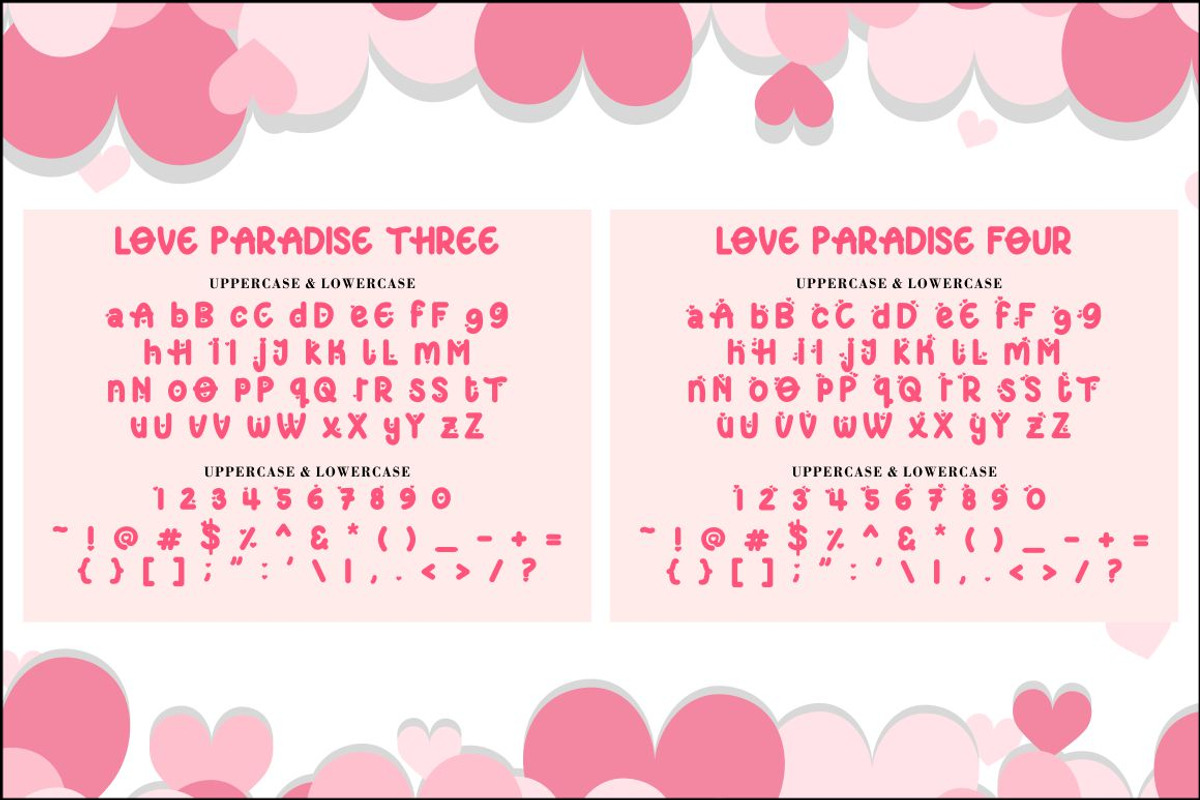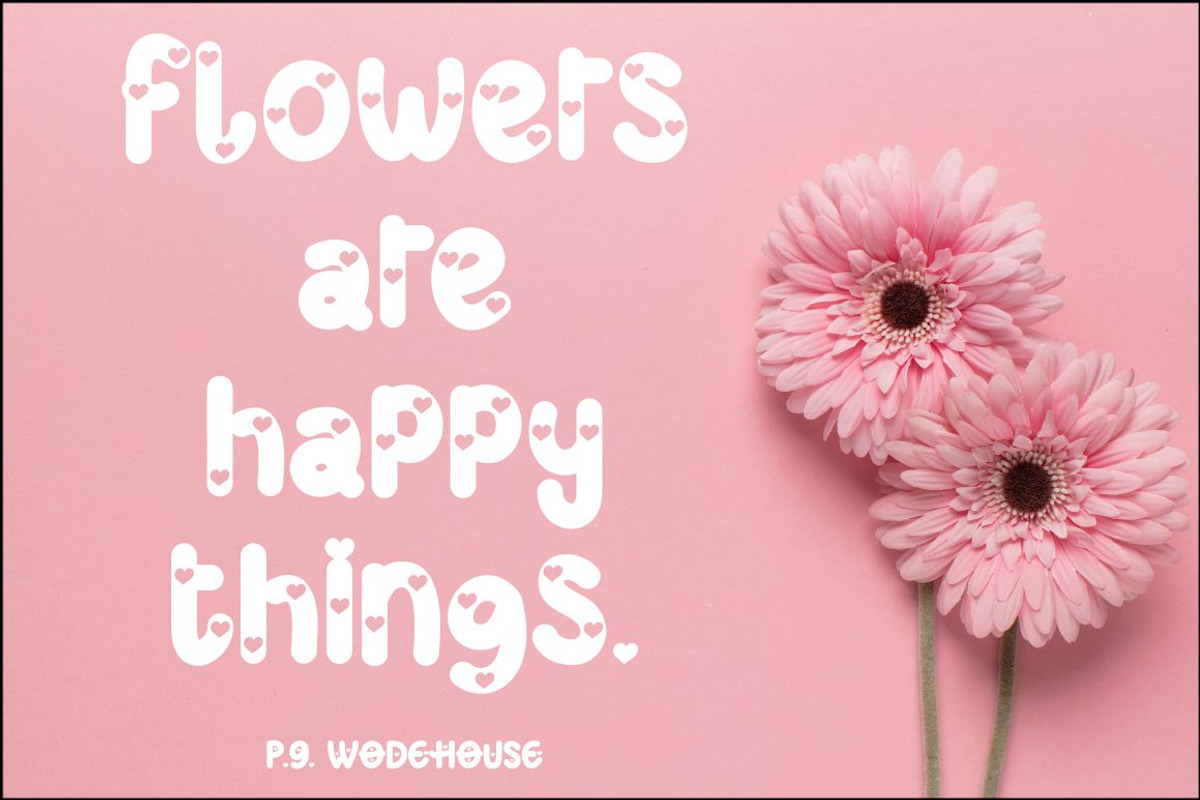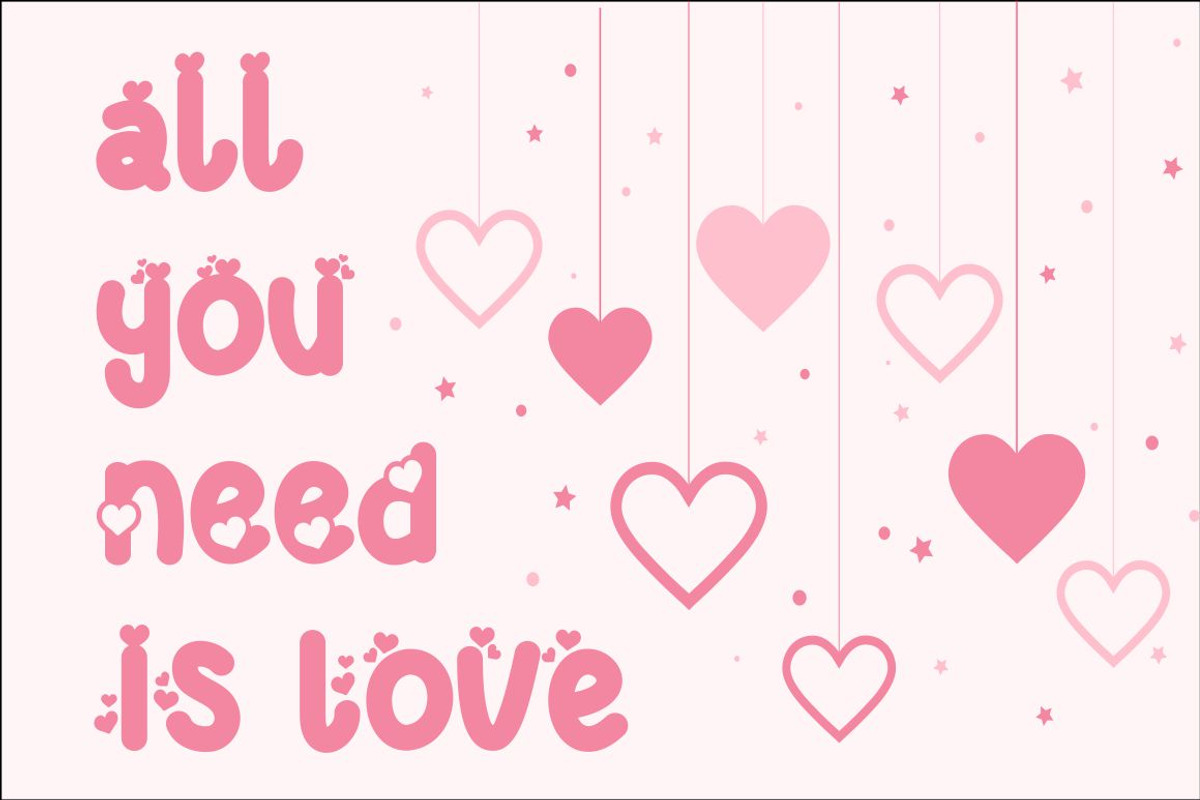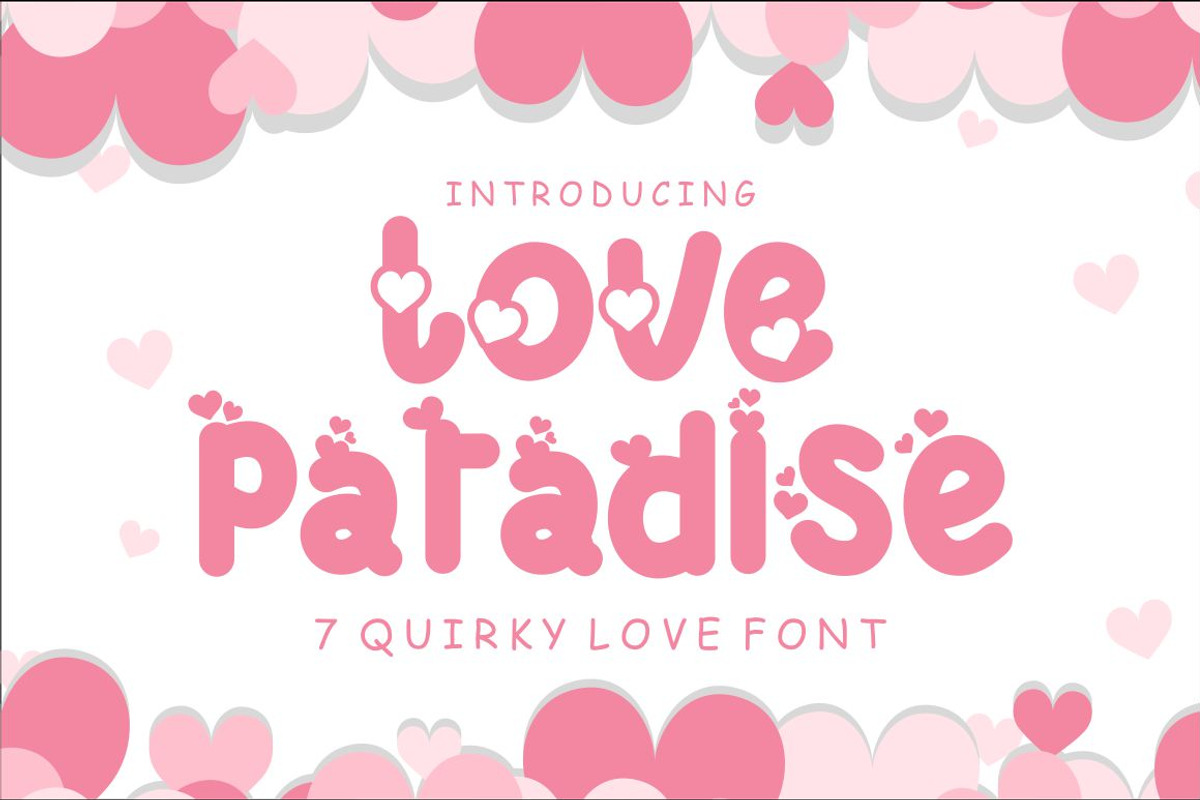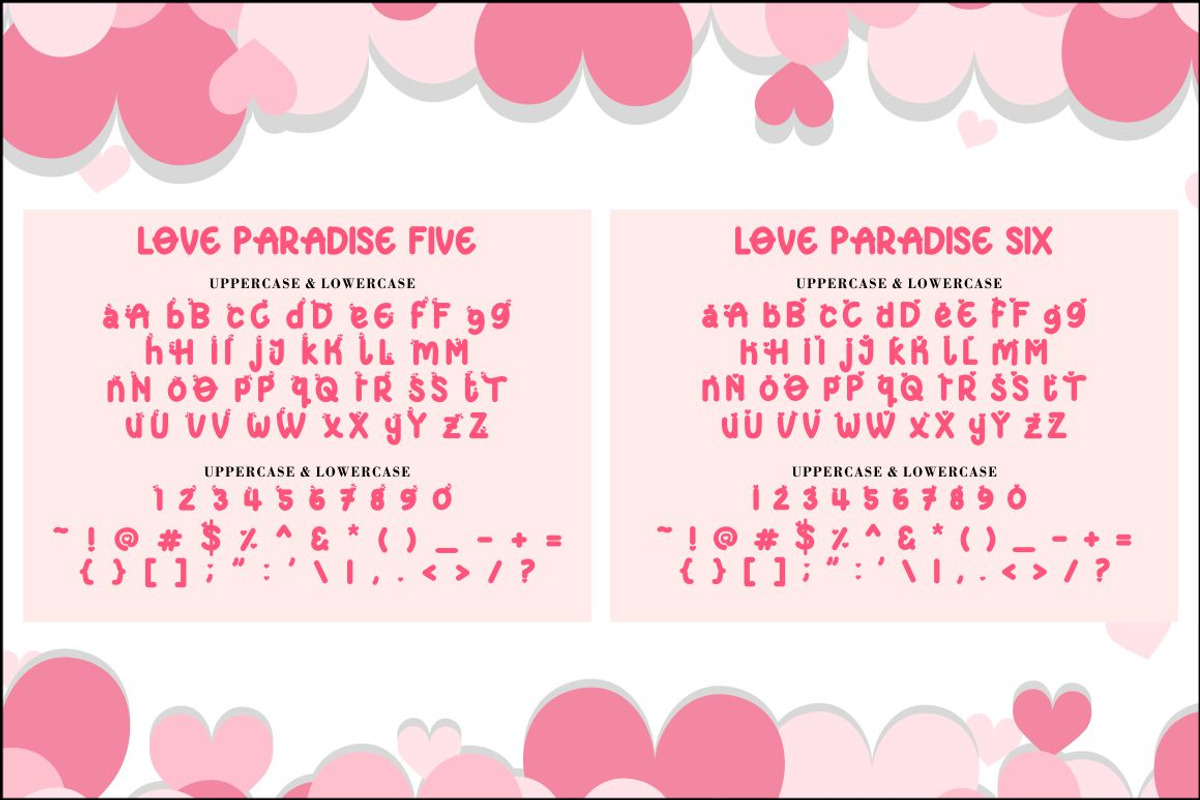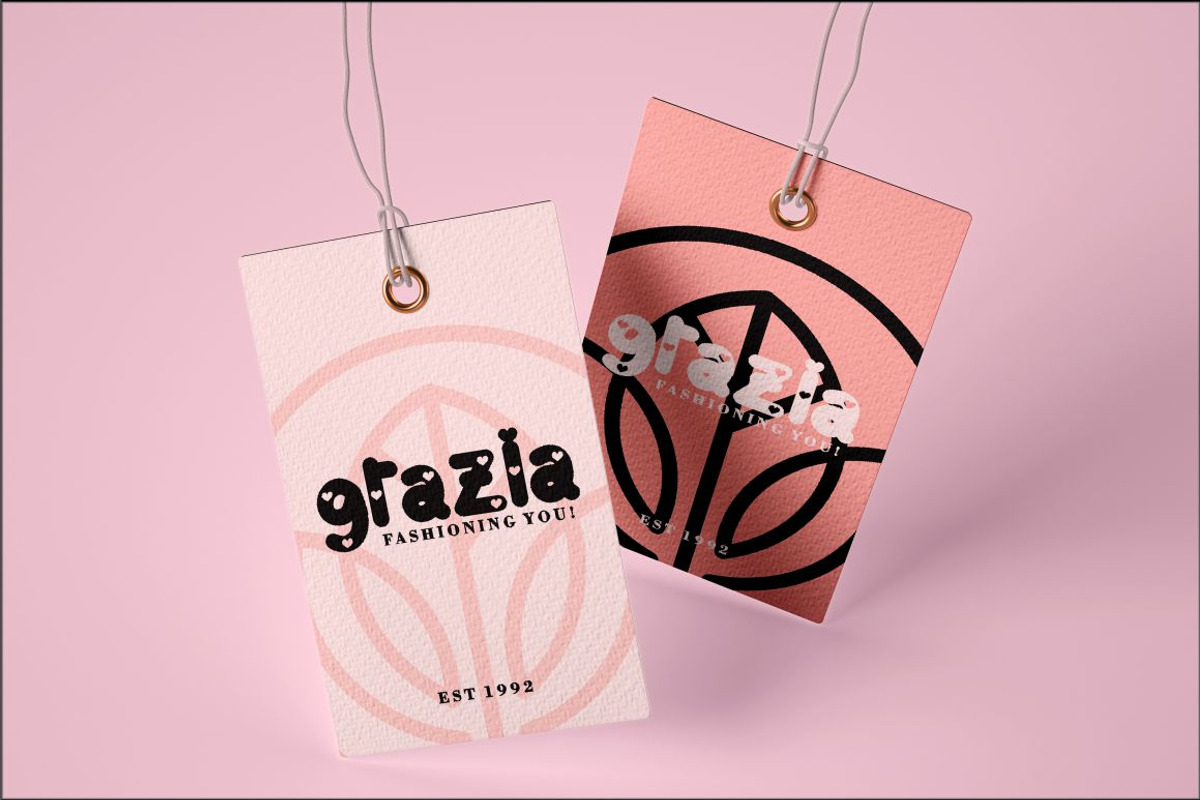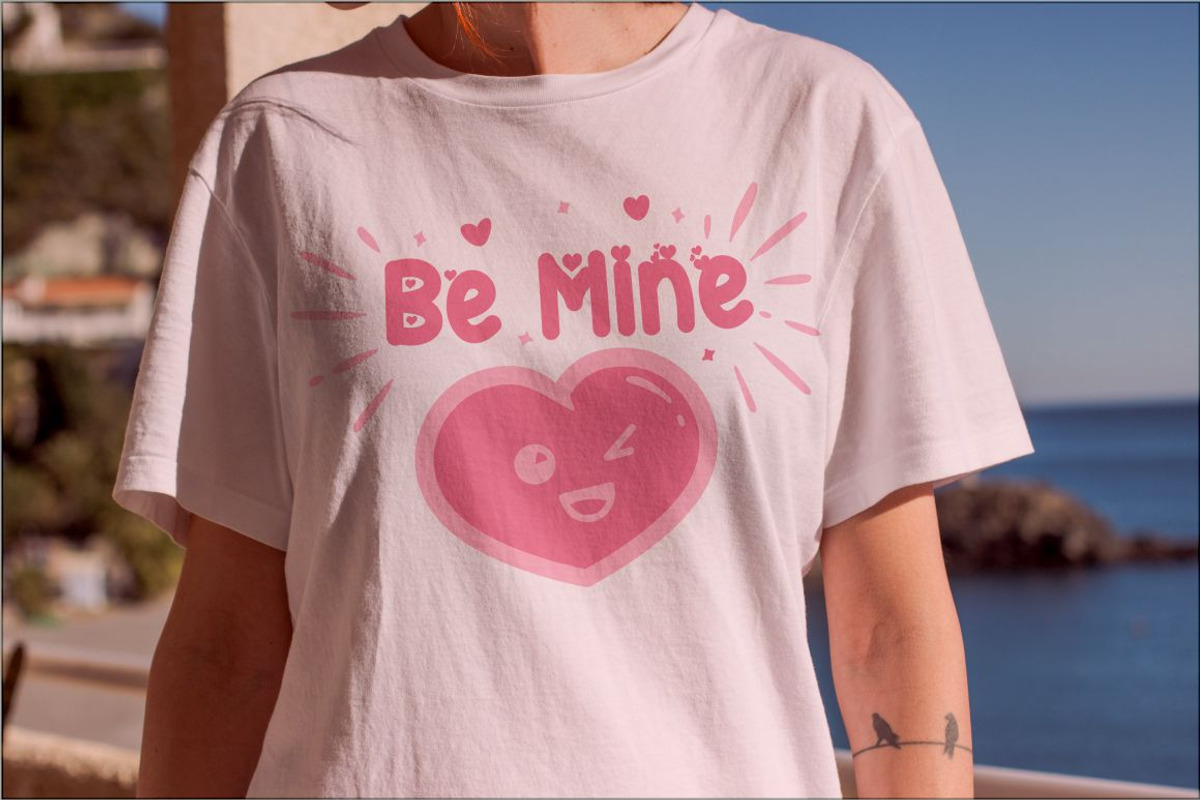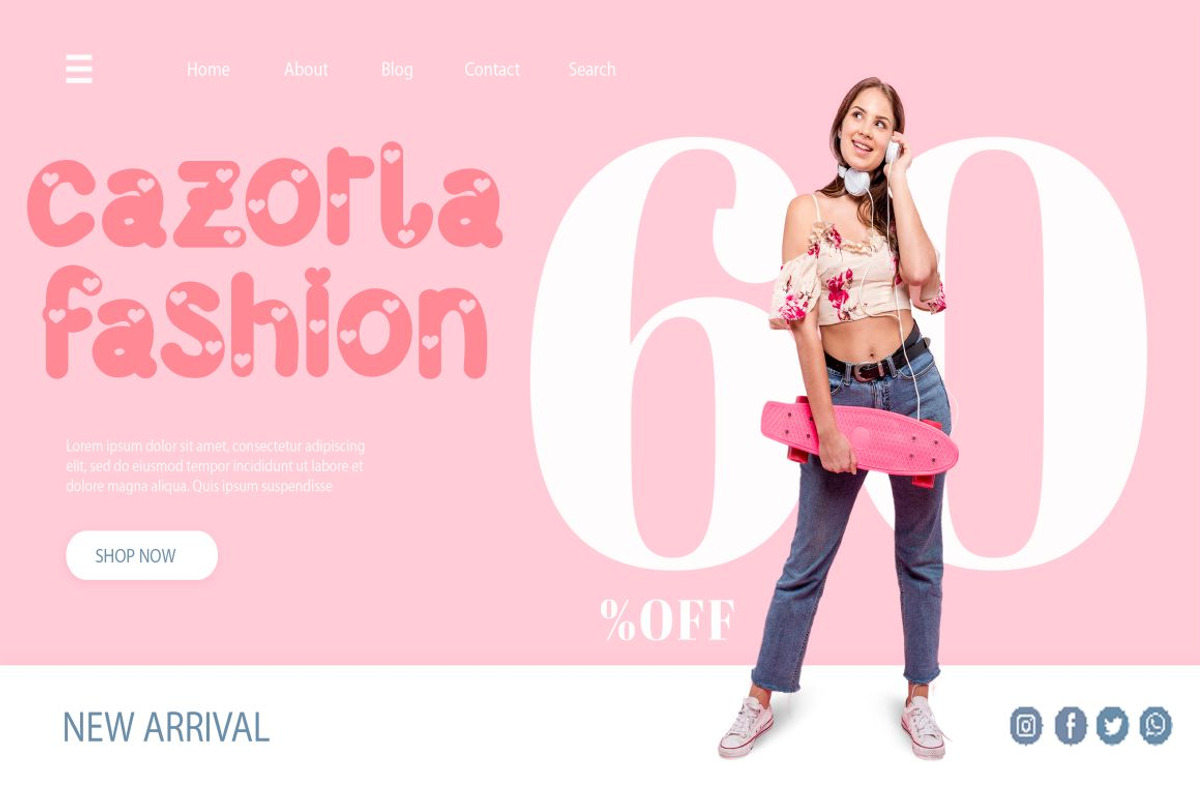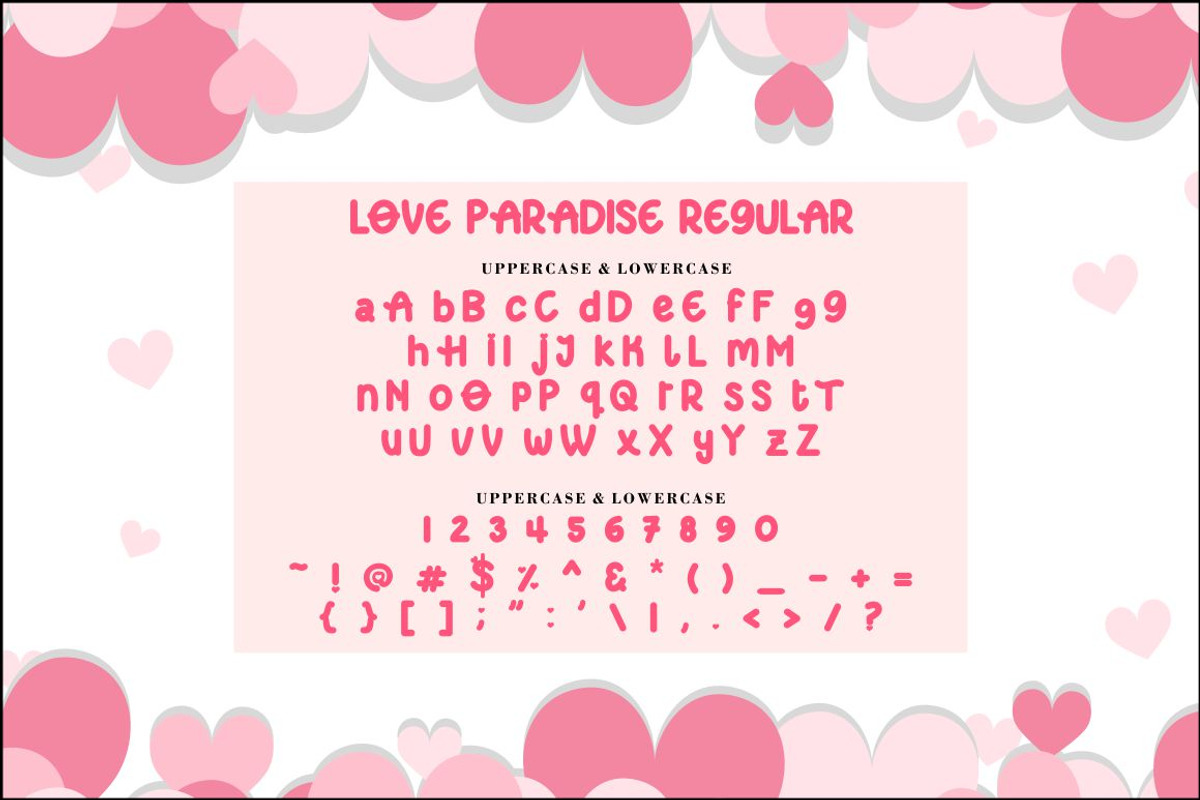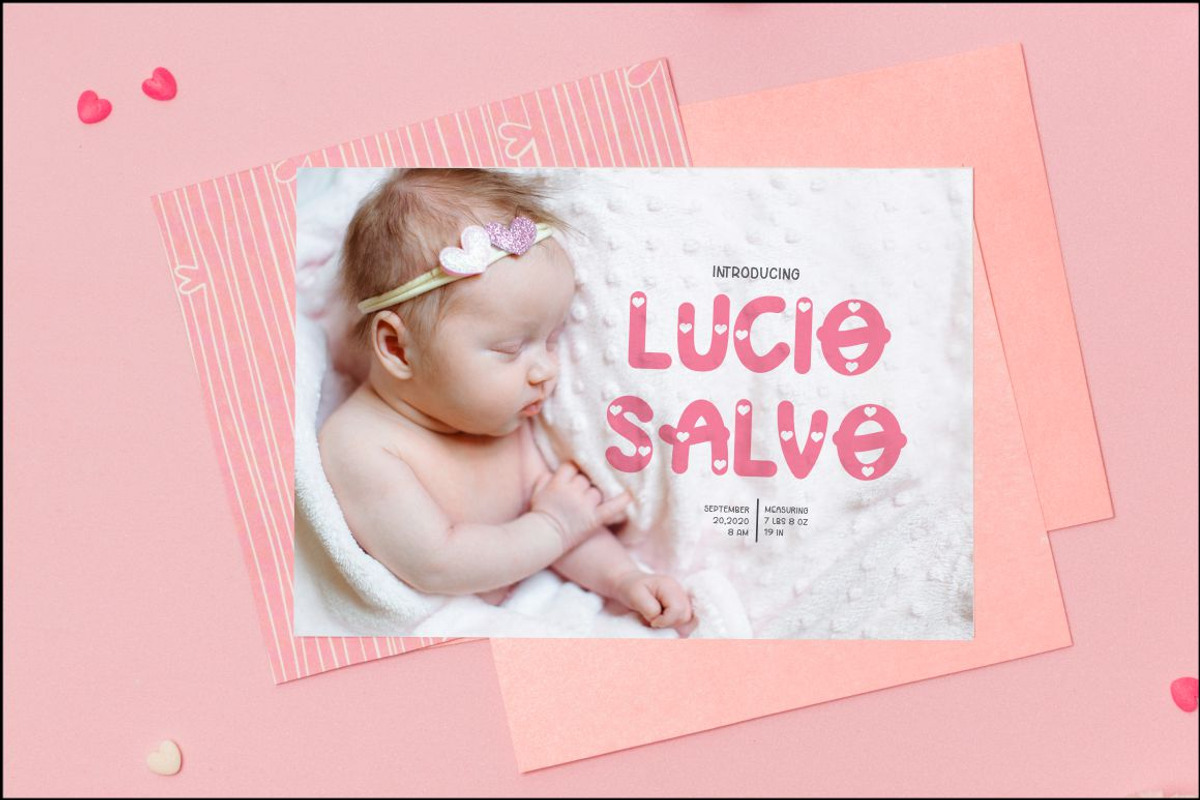
Love Paradise - 7 Quirky Love Font
Love Paradise
Love Paradise is a quirky love font with 6 different versions of the font, the difference between each version is in the shape of the heart decoration. This font is basically soft and fun, and coupled with heart decorations of various shapes and choices, will make this font suitable for the projects you are working on, especially those themed on love, valentine, children, babies, weddings, etc. In addition, this font is also suitable for invitation cards, greeting cards, logos, branding, posters, crafting, stickers, social media, packaging, headers, merchandise and others. This font is also support multi language.
- Number, Punctuation And Symbols
- Multilanguage Support.